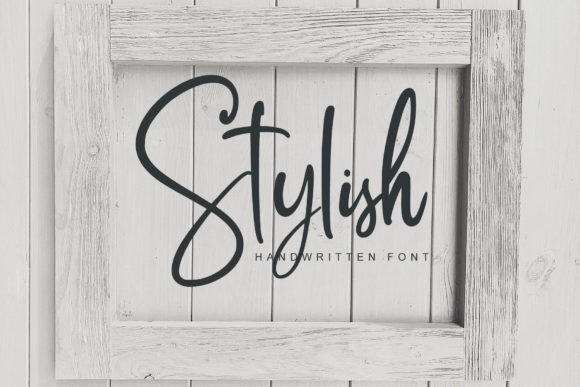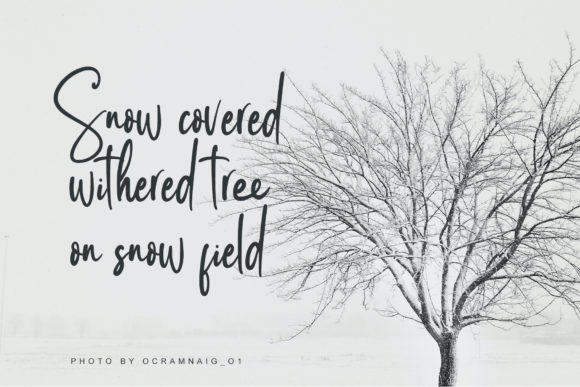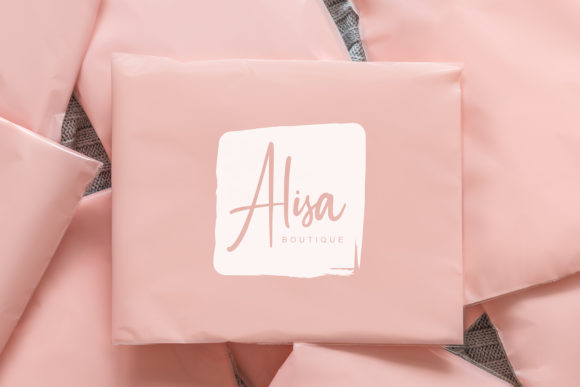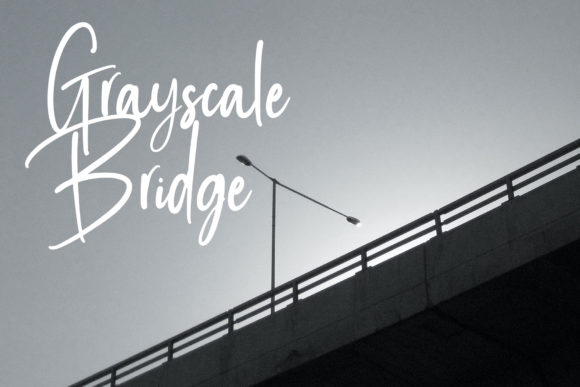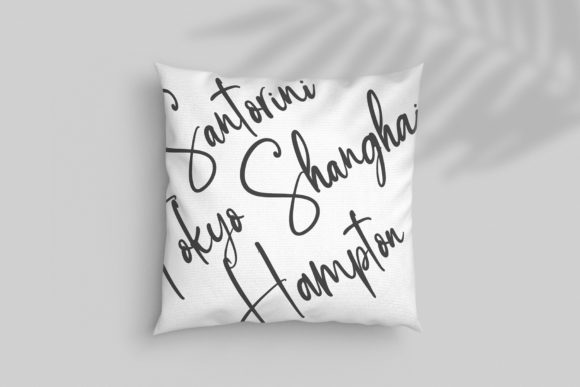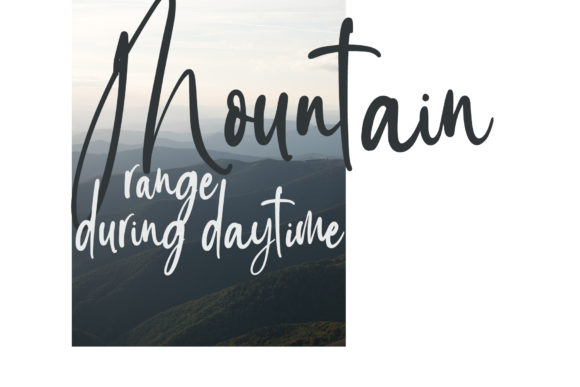
Introduction to Santtina Font
Have you ever stared at a blank canvas, waiting for inspiration to strike? For designers, this moment is all too familiar. But what if you had the perfect tool to spark your creativity and bring your vision to life? Enter the Santtina Font, a modern handwritten font that’s about to revolutionize your next creative project.
With its high-quality design and versatility, the Santtina Font is a game-changer for designers looking to elevate their work. Whether you’re creating a logo, business card, or album cover, this font is sure to impress. Plus, with a transparent background, you can easily incorporate it into any design project, making it a valuable resource for any creative professional.
Key Features of Santtina Font
- High-quality design: The Santtina Font is designed with a focus on detail and precision, making it perfect for creative projects.
- Transparent background: The font features a transparent background, allowing for easy layering and customization in design projects.
- Unique characteristics: The Santtina Font features a unique, elegant design with intricate details, making it perfect for use in creative projects such as branding, logos, and typography.
- Design versatility: The font is highly versatile and can be used in a variety of design contexts, from digital design to print materials.
Honest Review: Santtina Font
As a designer, I’ve had the opportunity to work with numerous fonts, and I’m excited to share my thoughts on the Santtina Font. This high-quality font is available for free download, making it a fantastic resource for designers on a budget.
One of the standout features of the Santtina Font is its versatility. The font is suitable for a wide range of creative projects, from logos to marketing materials, and even digital products. The font’s modern design and clean lines make it an excellent choice for designers who want to create a professional-looking aesthetic.
Here are some of the things that work well with the Santtina Font:
- ✨ Modern design: The font’s sleek and contemporary design makes it perfect for modern creative projects.
- ✨ Versatile: The font is suitable for a wide range of projects, from logos to marketing materials.
- ⚠️ Limited font weights: The font only comes in a few weights, which may limit its use in certain projects.
- ⚠️ No transparent background: The font doesn’t come with a transparent background, which may make it difficult to use in certain design scenarios.
Overall, I’m impressed with the Santtina Font. While it has its limitations, its high-quality design and versatility make it a great resource for designers. I would definitely recommend it for creative projects, but be mindful of its limitations when using it.
Santtina Font
Tips for Getting the Most Out of the Santtina Font
Use the Santtina Font on a transparent background to create a clean and modern design. Experiment with different font sizes and colors to add depth and visual interest to your design.
Common Use Cases: